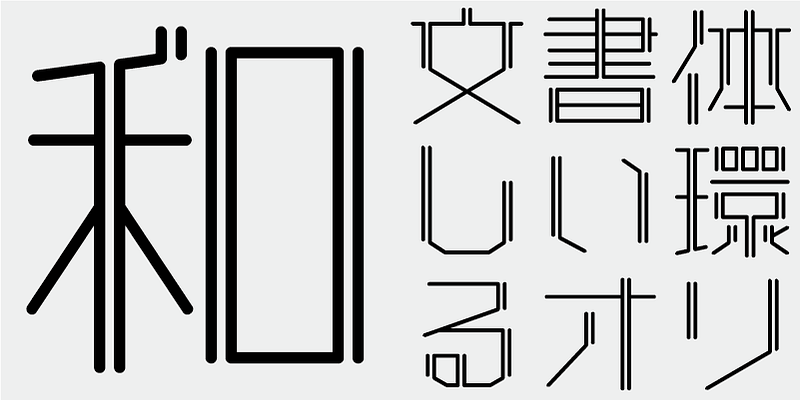
AB Intore Font Free Download
AB Intore Font Free Download is a sleek and sophisticated display typeface with a modern aesthetic. Designed with sharp, clean lines and geometric precision, this font is ideal for projects that require a strong, contemporary feel. AB Intore works beautifully in branding, headlines, editorial design, and any creative work that needs a high-end, professional appearance.
The font combines bold, balanced letterforms with ample spacing, making it perfect for large-scale titles or text that needs to stand out. It has a versatile and timeless style, making it suitable for both digital and print design applications.
Bold, refined, and contemporary—AB Intore Font is an excellent choice for those looking to add a sophisticated and modern touch to their design projects.